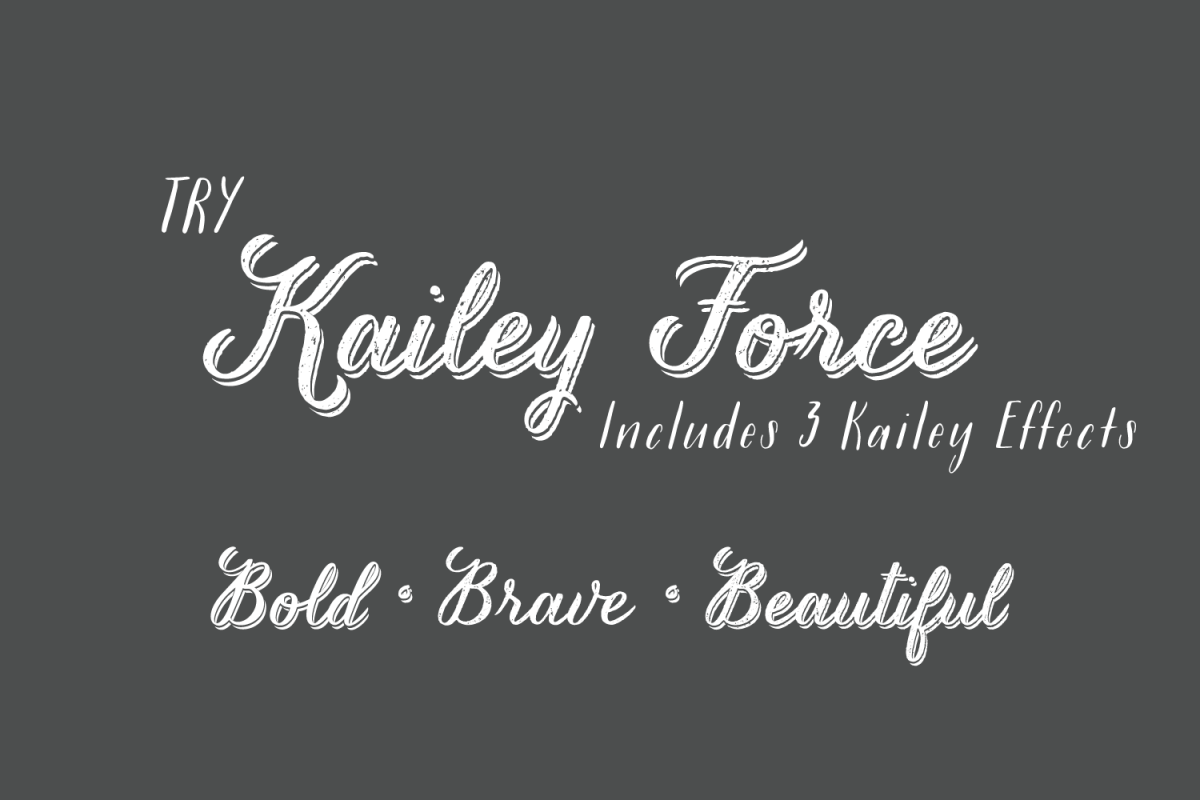
Kailey Force
KaileytheBrave
KaileytheBold
KaileytheBeautiful
Kailey Force contains 3 powerful effects for her kissing cousin: Kailey. The Bold (Drop Shadow), the Brave (Distressed), and the Beautiful (Combined).
Kailey is a hand lettered, voluptuous typeface that is very special to the Great Lakes Lettering team. This oblique font is inspired by Molly Jacques’ “signature” lettering style, using bold brush strokes, fluid flourishes, and distinctive characters. Kailey has a distinct feminine feel that takes on a bold attitude to match her curves.